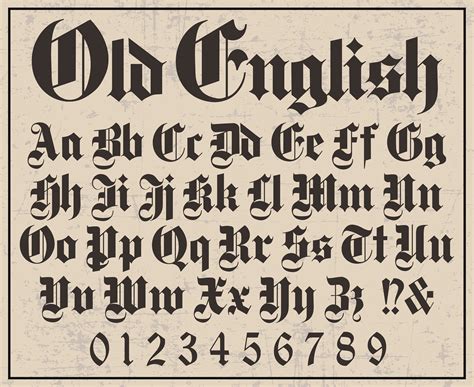
Revive Your Text with Timeless Old Style Fonts
Are you looking for a way to make your text stand out?
Timeless old style fonts can add a classic and nostalgic touch to your text that will make it look truly unique. But how can you make the most of these fonts?
In this article, we’ll explore the different types of old style fonts and how you can use them to revive your text. You’ll learn how to choose the right font, how to combine fonts, and how to make your text look stunning. Ready to get started? Let’s go!
Old style fonts are a type of typeface that originated in the 15th century. They are characterized by a curved, rounded look and a more organic feel than modern fonts. They are a great way to give your text a classic and timeless look, while still making it stand out. So why not give them a try?
When choosing an old style font, it’s important to consider the size, weight, and spacing of the font. You also want to make sure that the font you choose is legible and easy to read. To find the perfect font for your project, take some time to explore the different options available.
Once you’ve chosen the perfect font, you can combine it with other fonts to create a unique look. For example, you can use a bold font for headlines or titles, and a thinner font for the body of your text. Experiment with different combinations to find the perfect look for your project.
By using the right combination of fonts, you can make your text look timeless and beautiful. So why not give old style fonts a try? With a little bit of experimentation, you can create a unique look that will make your text stand out.
Ready to give old style fonts a try? We hope this article has inspired you to revive your text with timeless old style fonts. Take some time to explore the different font options available, and you’ll be sure to create a unique look that will make your text stand out. So what are you waiting for? Get started today!
Discovering the Different Types of Old Style Fonts
The old style font family is an important part of typography, and it is also an important part of the history of written communication. The old style font family is a range of typefaces that were used in the early days of printing, before the advent of modern typefaces. These typefaces were created to emulate the handwritten manuscripts of the day. They were often used in books, newspapers, and other printed materials. They were also used in advertisements and other forms of communication.
Old style fonts are characterized by a certain look and feel. They often have a slightly curved or gallant appearance. They are often a bit more delicate and graceful compared to the more modern font families. Old style fonts are often highly stylized, with a lot of detail and ornamentation. They can be quite ornate and decorative, depending on the typeface.
Learn How to Identify Old Style Fonts
It can be difficult to identify old style fonts, as there are so many different types. To help you identify old style fonts, there are a few key characteristics that can be looked for. One of the key features is that old style fonts often have a more gentle, flowing curve. This can be seen in the letterforms, which have a more relaxed and curved look. The serifs, or small strokes at the end of each letter, are also often quite delicate and ornate.
Another characteristic of old style fonts is that they often have a slightly larger x-height, or the height of the lowercase letters. This helps to give the font a more open, inviting look. Old style fonts tend to be a bit more stylized than modern fonts, but they still have a certain elegance to them. Finally, old style fonts usually have a bit more variation between the thickness of the strokes, giving them a more varied and interesting look.
Finding the Best Old Style Fonts for Your Needs
When it comes to finding the best old style fonts for your needs, there are a few things to keep in mind. First, you should think about the context in which the font will be used. If the font is being used in a book or a newspaper, it should have a more traditional look. On the other hand, if the font is being used in an advertisement or a website, it should have a more modern look.
The next thing to consider is the size of the font. Old style fonts tend to be a bit smaller than modern fonts, so it is important to make sure that the font is not too small. Finally, consider the tone and atmosphere of the font. Old style fonts often have a more relaxed, inviting look, so it is important to make sure that the font fits with the overall aesthetic of the project.
Using Old Style Fonts to Revive Your Text
Old style fonts can be a great way to add a touch of elegance and style to your text. They can help to give your text a more inviting and welcoming look. And, since old style fonts often have a more traditional and graceful appearance, they can help to make your text look more timeless and classic.